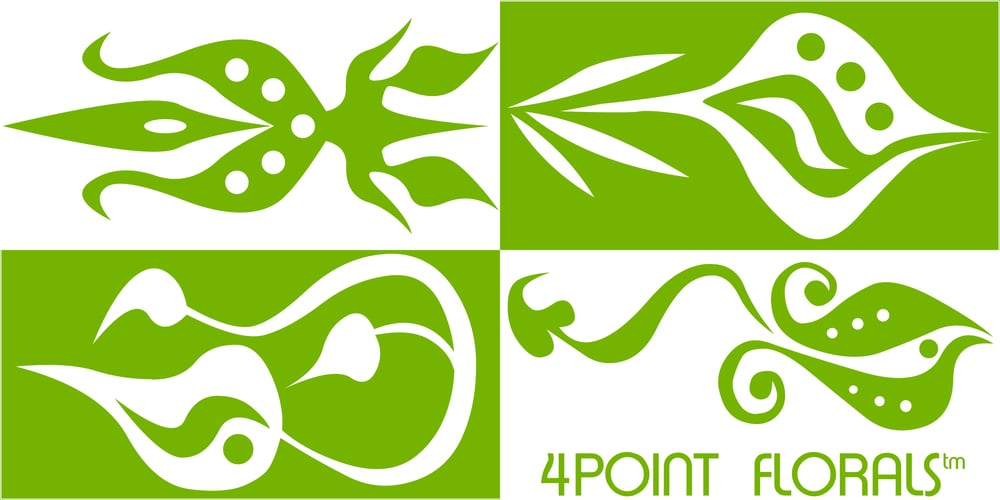
4 Point Florals
4 Point Florals font
4 Point Florals Font Family was designed by Denise Koehler and published by Deniart Systems. 4 Point Florals contains 1 styles and family package options. A whimsical array of floral pointers (up/down/left/right) – great for adding directions or pointers to documents, maps, posters, greetings, or simply used as decorative elements. See also 4Point Deco and 4Point GreekFret.